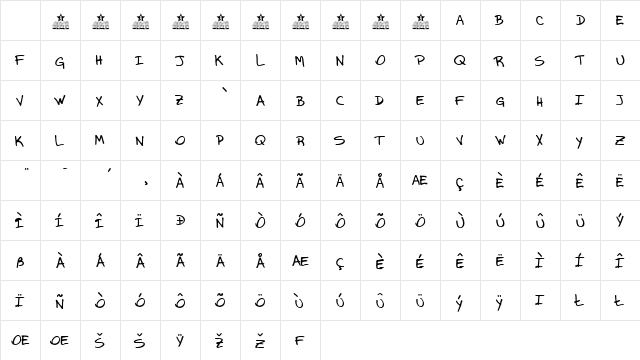
Complete HOUSE QUEEN Regular glyph index. Displaying only characters natively supported by HOUSE QUEEN Regular font.
HOUSE QUEEN is a composed and adaptable typeface that performs quietly and consistently across a wide range of design contexts.